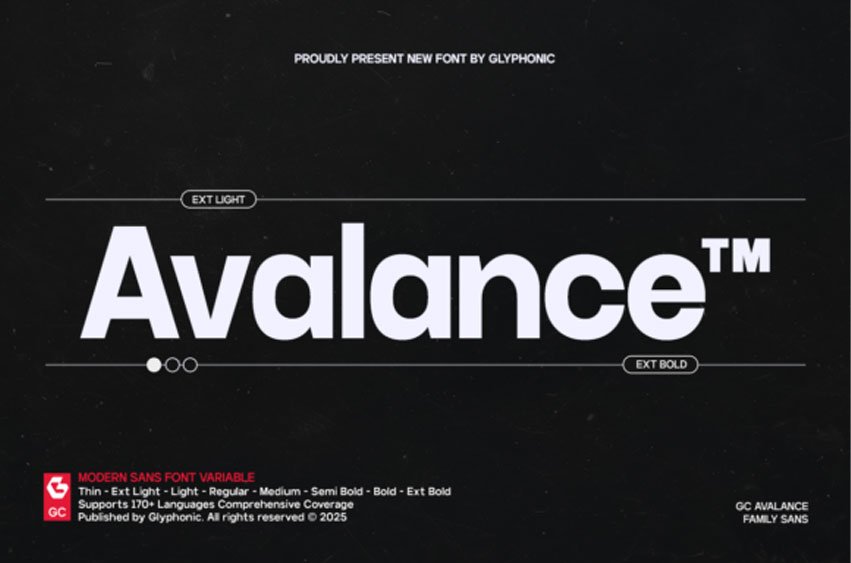
Avalance Font is a modern sans-serif variable font designed with precision, minimalism, and technical flexibility.
It includes multiple weights from Thin to Extra Bold, providing designers full control over tone and visual impact. The clean geometric shapes and wide letter spacing deliver clarity, balance, and contemporary appeal.
Avalance supports over 170 languages and offers advanced OpenType features, making it suitable for branding, corporate design, tech interfaces, and editorial layouts. Its consistent rhythm and smooth curves give it versatility across print and digital platforms, creating a polished and professional impression.
Perfect for branding, editorial layouts, interfaces, and bold visual identities, the Avalance font family embodies a confident modern aesthetic without sacrificing readability. Each weight—from Thin to Extra Bold—has been carefully tuned for harmony and impact, making it ideal for both headlines and body text.
Bring clarity, structure, and a forward-thinking edge to your typography with Avalance – Neo Modern Typeface.